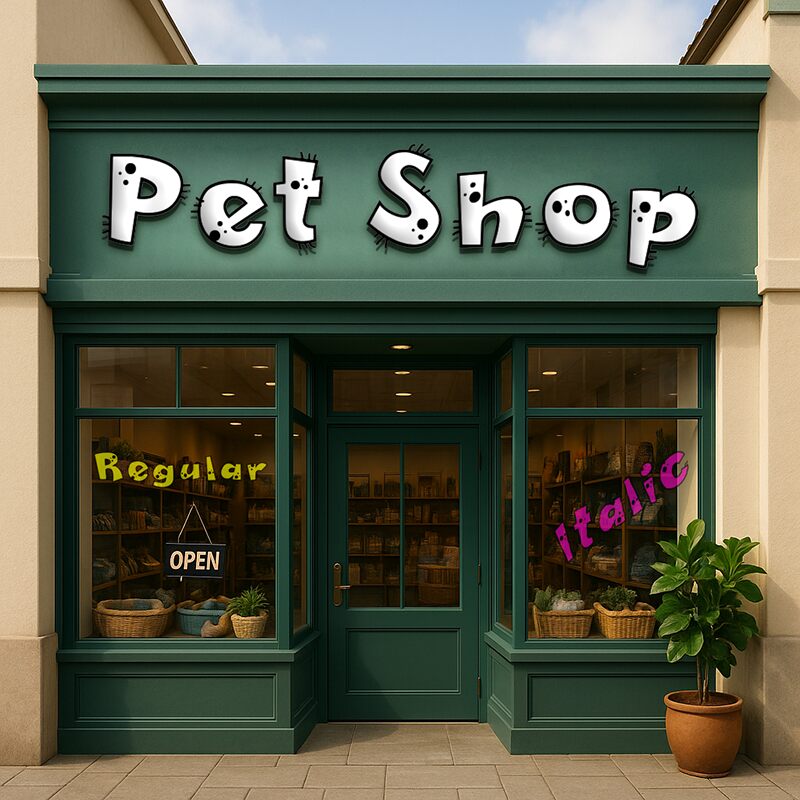
Pet Shop Italic
Pet Shop Italic font by Galdino Otten Fonts is a free italic cartoon display font built around a playful, pet-themed twist. Each letter tilts with a lively bounce, sprinkled with spotty “fur” textures and tiny whisker-like nicks that feel hand-doodled and friendly. As part of the Pet Shop family, its chunky outlines and soft curves keep the mood bright without getting messy.
This free font shines on pet store signage, kids’ book covers, birthday invites, grooming salon flyers, toy packaging, and animal rescue campaigns. Using Pet Shop Italic, keep headlines big and airy, and pair it with a simple rounded sans for body copy. The jaunty rhythm attracts attention fast while the cuddly detailing sticks in memory.